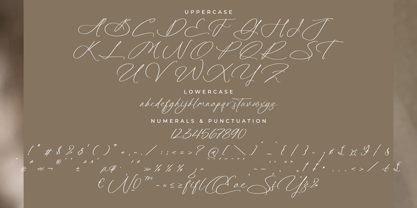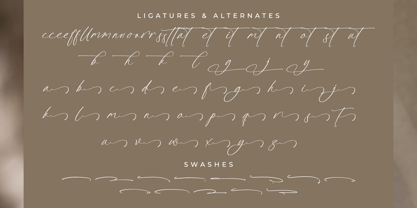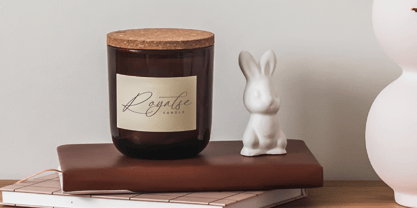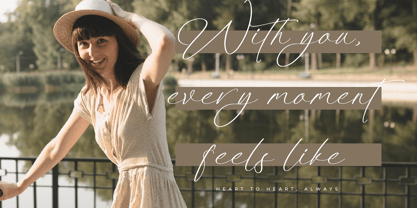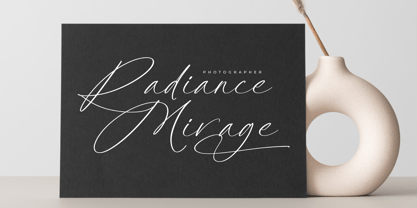
Platimye
por Letterena Studios
La familia tipográfica Platimye fue diseñada por Heru Utama Putra y publicada por Letterena Studios. Platimye contiene 2 estilos y opciones de paquete familiar.
Platimye is a stylish script font that embodies sophistication and grace. With its fluid, sweeping letterforms, this font exudes a timeless elegance and adds a touch of glamour to any project. Ideal for conveying luxury and refinement, this font elevates your designs with its captivating aesthetic.